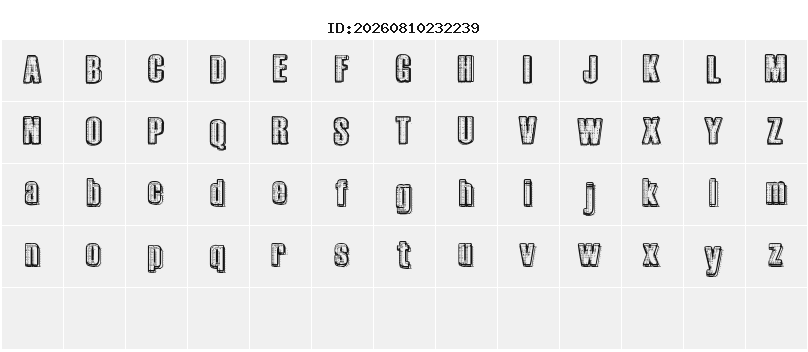
RvD_PRINTPLATE Preview
• Font Name: RvD_PRINTPLATE
• Font ID: RvD_PRINTPLATE:Version 1.00
• Full Font Name: RvD_PRINTPLATE
• Version: Version 1.00 March 24, 2009, initial release
• PostScript Name: RvD_PRINTPLATE
• Character Count: 54
About RvD_PRINTPLATE.ttf
RvD_PRINTPLATE.ttf is a modern, elegant sans-serif font designed for ultimate readability and visual harmony. Perfect for branding, headlines, web design, and print materials.